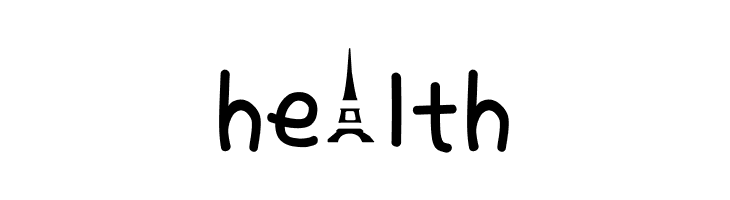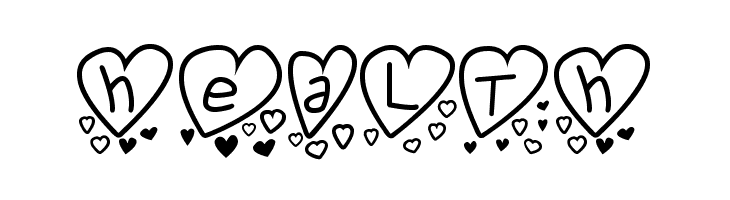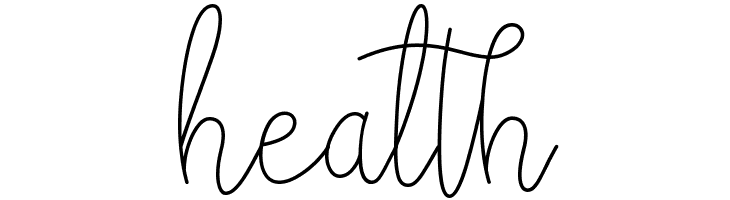
• Love in Paris
• Love Is Attention
A bold, geometric font with a modern and attention-grabbing style.
• Love Is Attention
• Love Letter
A playful, handwritten font with a whimsical and casual style.
• love of love by OUBYC
• Love Prilly
A flowing, cursive script font with elegant swashes and intricate loops.
• Love You tfb
A whimsical font with letters encased in heart shapes, perfect for romantic or playful designs.
• Love you too tfb
A playful, heart-themed decorative font with bold outlines.
• lovely golden
A delicate, flowing script font with elegant, elongated letterforms.
• Lovely Kei
A decorative font with a playful dotted pattern, perfect for creative projects.